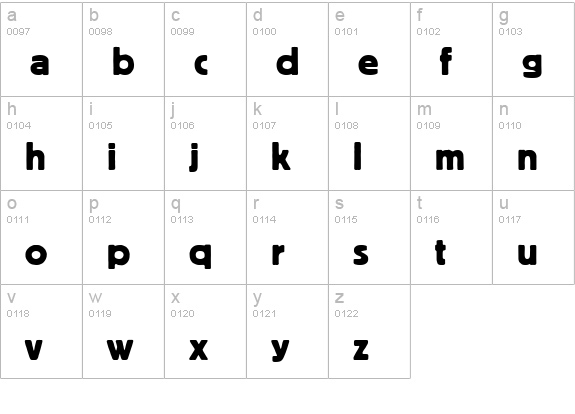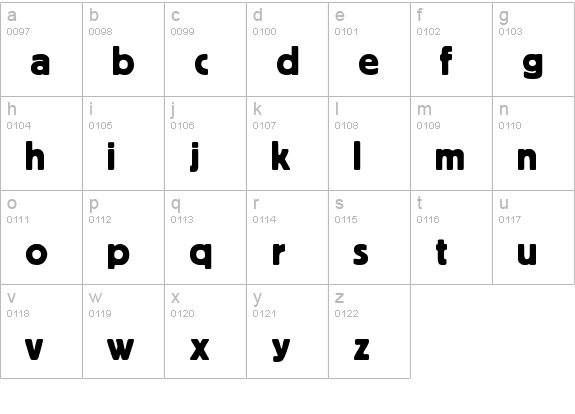
Blofeld-Regular is the standard, neutral variant in the Blofeld typeface family \xE2\x80\x94 well suited to general body text, paragraphs, and standard typographic work.
Introducing Blofeld-Regular font, a modern and stylish typeface perfect for adding a touch of sophistication to your designs. This versatile font features clean lines and a sleek aesthetic that will elevate any project. With its timeless appeal, Blofeld-Regular is ideal for branding, logos, headlines, and more. And the best part? Blofeld-Regular is available for free download at FontsMarket.com. Don't miss out on this incredible opportunity to enhance your designs with this stunning font. Download Blofeld-Regular today and bring your creativity to the next level!